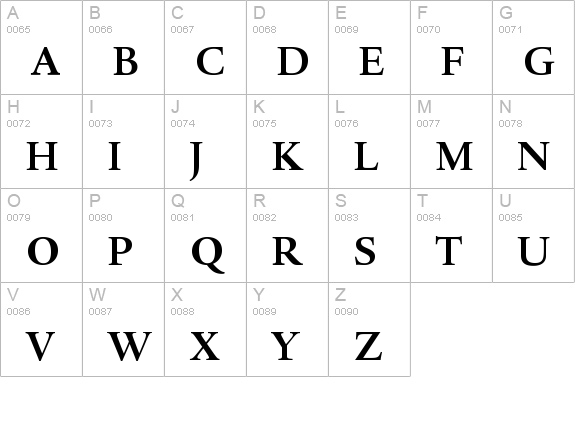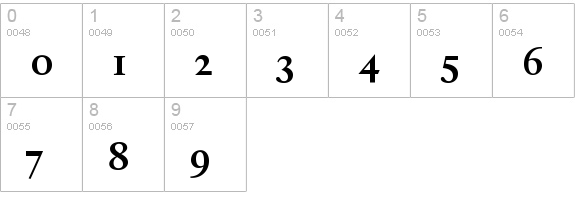
DTLHaarlemmerSD-Bold Font Details
DTLHaarlemmerSD-Bold is a strong, high-contrast variant in the DTLHaarlemmerSD typeface family \xE2\x80\x94 well suited to headlines, attention-grabbing titles, and strong calls-to-action.
The DTLHaarlemmerSD-Bold font is a bold and impactful typeface that exudes a sense of strength and modernity. Its clean lines and sharp edges make it perfect for headlines, titles, and other prominent text in both digital and print media. With its commanding presence, this font is sure to make a statement and capture the attention of your audience. What makes this font even more appealing is that it is available for free download at FontsMarket.com. This means that you can easily access and use this striking typeface in your design projects without any cost. Take advantage of the DTLHaarlemmerSD-Bold font to add a touch of boldness and sophistication to your work today!